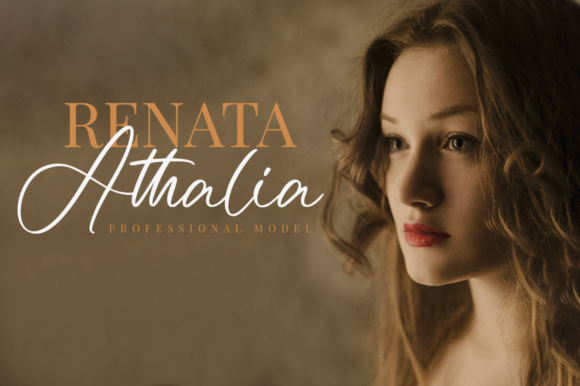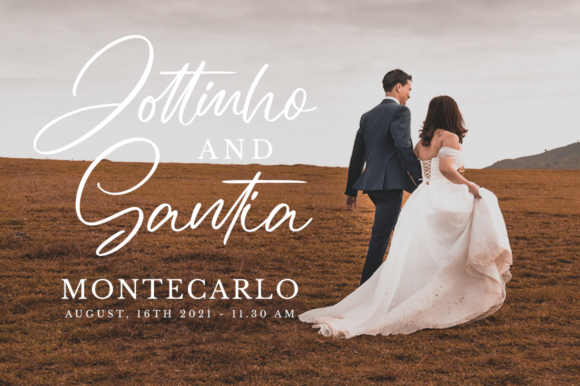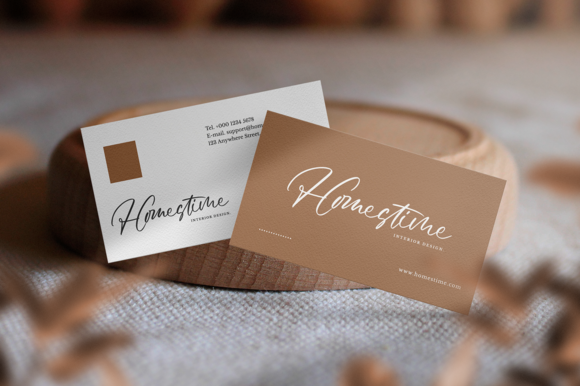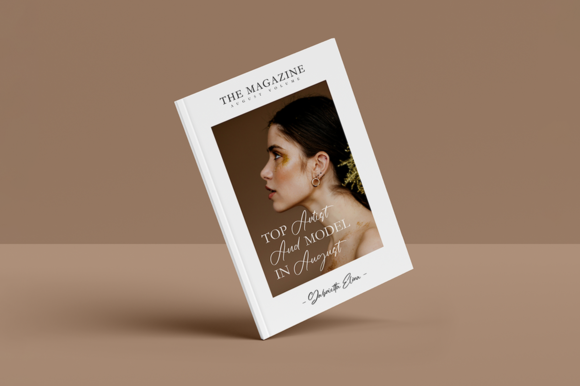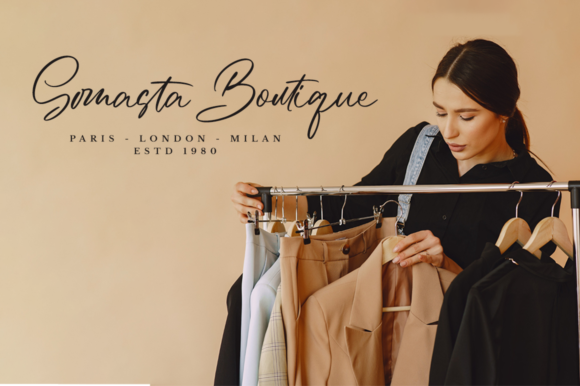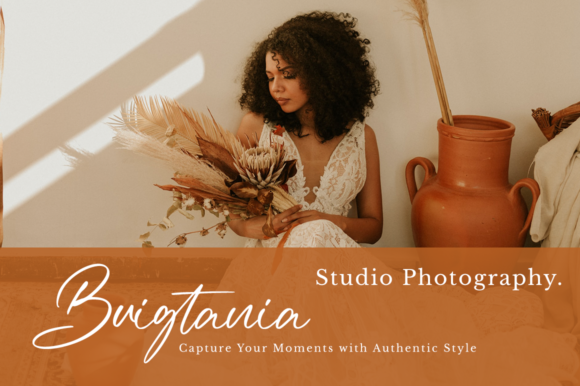
The Feminista Font: A Timeless Elegance for Your Creative Projects
I’ll never forget the moment I stumbled upon the perfect font for a client’s wedding invitation. I had been searching for hours, trying out different fonts, but none seemed to capture the essence of the elegant and modern aesthetic we were going for. That was until I discovered the Feminista Font. With its refined script and classy look, it was love at first sight! In this article, I’ll share my experience with this beautiful font, its features, and how to make the most of it in your creative projects.
An Honest Review of Feminista Font
Feminista Font has quickly become one of my go-to fonts for a variety of design projects. Here’s what I love about it:
- ✨ Elegant and modern look: Feminista Font has a sophisticated and refined appearance that makes it perfect for logos, branding, invitations, and more.
- ✅ Versatile: This font can be used for a wide range of projects, from wedding designs to social media posts.
- 💫 Beautiful swashes and ligatures: The font comes with a range of swashes and ligatures that add a touch of elegance to any design.
While Feminista Font is an amazing font, it’s not without its quirks. Here are a few things to keep in mind:
- 🤔 Limited use in body text: While Feminista Font is perfect for headings and titles, it may not be the best choice for body text due to its script nature.
- ⚠️ Requires careful kerning: As with any script font, kerning can be a bit tricky, especially when using it in combination with other fonts.
The Designer Inspiration Behind Feminista Font
Feminista Font was designed with the intention of creating a beautiful, elegant, and modern script font that would inspire creativity and sophistication. The designer, inspired by the world of fashion and luxury, aimed to create a font that would evoke a sense of refinement and poise.
| Font Name | Feminista Font |
| What is Feminista Font best used for? | Feminista Font is best used for logos, branding, invitations, stationery, wedding designs, social media posts, and more. |
| Is Feminista Font suitable for body text? | While Feminista Font can be used for body text, it’s primarily designed for headings and titles due to its script nature. |
| Does Feminista Font come with OpenType features? | Yes, Feminista Font comes with a range of OpenType features, including swashes and ligatures. |